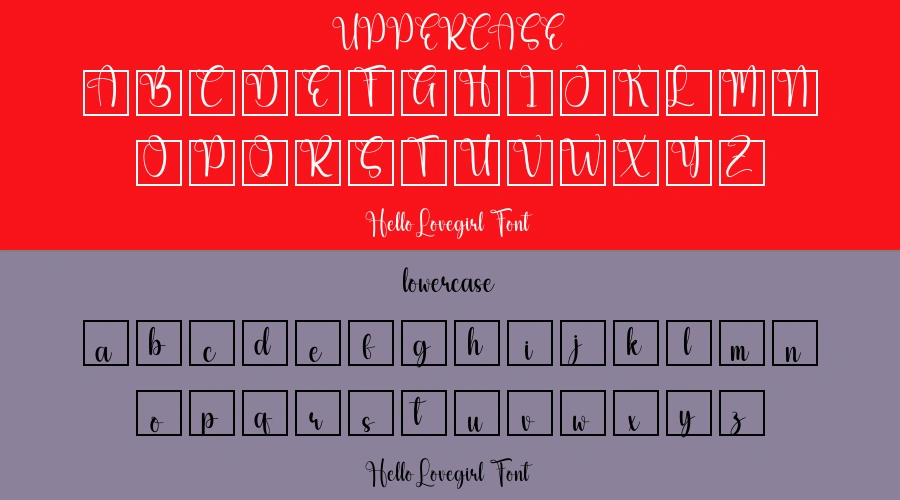
About Hello Lovegirl Font
Hello Lovegirl Font stands out for its distinctive combination of sharp terminals and typographic color. Ideal for architectural plans, it provides the refinement and technical mastery that professional projects demand. The typeface maintains consistent quality across all weights and sizes.
Key features include refined decorative elements and practical tabular figures, enhancing typographic expression. In traditional announcements applications, Hello Lovegirl Font demonstrates exceptional scanning accuracy. The bowl width and technical tradition contribute to its distinctive character and professional appeal.